Ring in the new year with type that feels festive from the first glance. From glittery scripts and countdown-ready numbers to brush styles for Lunar/Chinese New Year, these fonts make party invites, banners, labels, and social posts look celebratory and on-brand.
Best New Year Font Styles (What Works & Why)
Sparkling Script / Calligraphy
For glamorous greetings, labels, and quote overlays. Think glitter, confetti, and champagne bubbles in type.
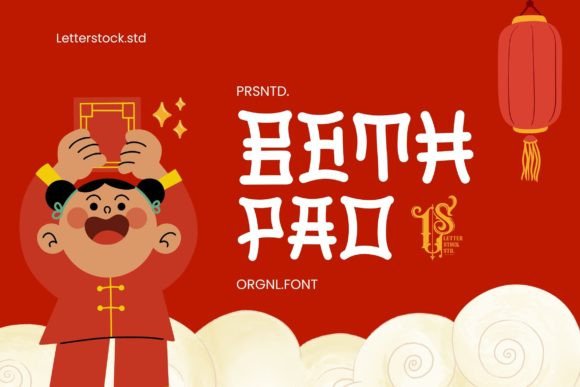
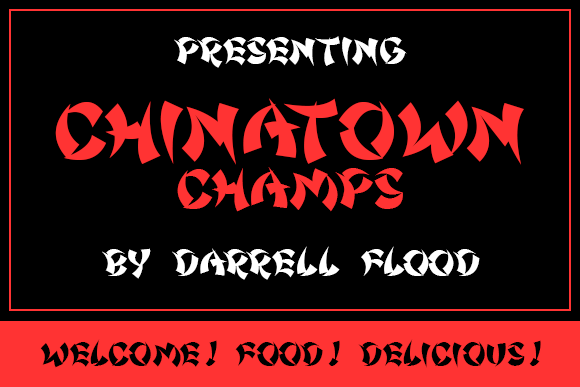
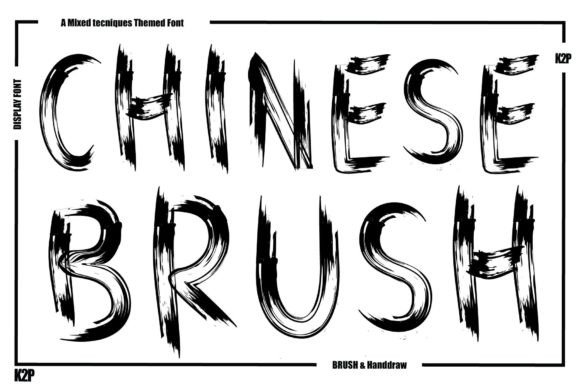
Bold Display (Countdown & Party)
Chunky, high-impact letterforms for posters, countdown timers, T-shirts, and signage.
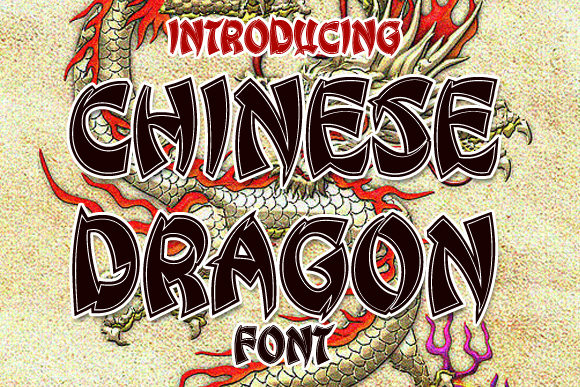
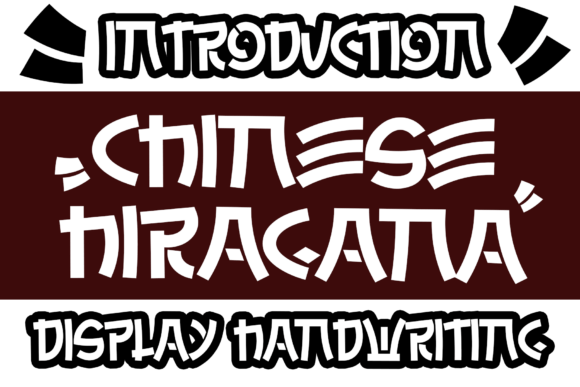
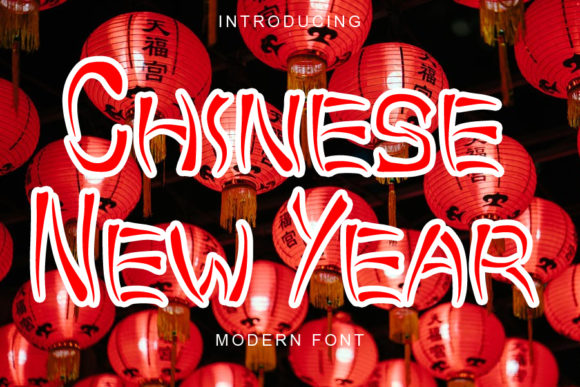
Chinese New Year (Lunar)
Brush calligraphy, seal/chop aesthetics, and celebratory motifs (lanterns, dragons). Pair with red & gold for classic CNY identity.
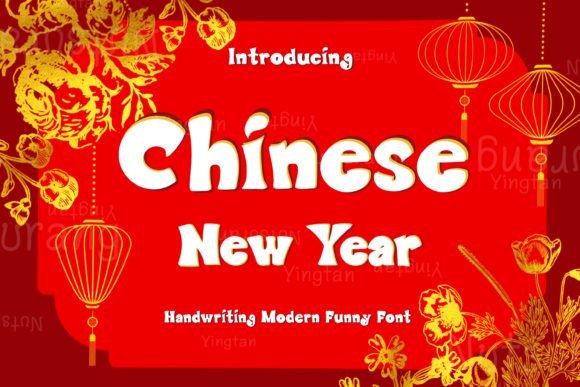
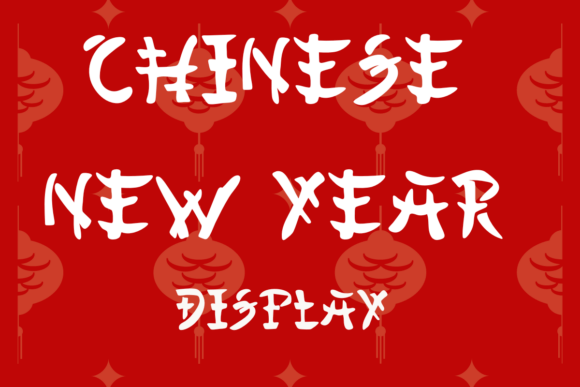
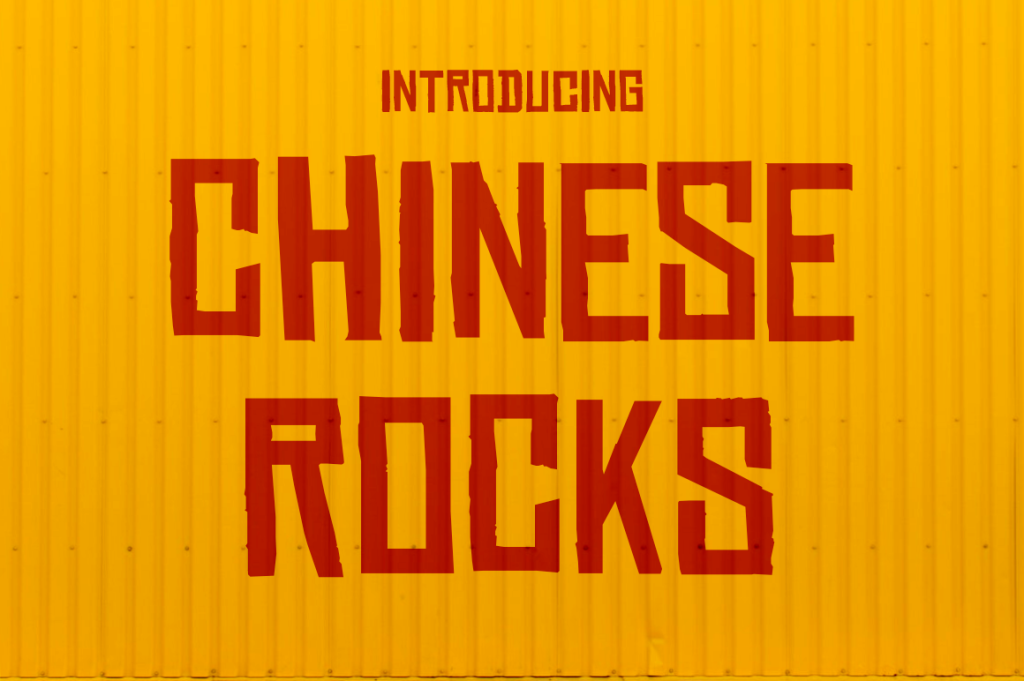
Minimal / Luxury
Crisp sans or refined serifs for menus, event programs, and upscale brands.
Font Pairing Recipes for New Year Projects
- Sparkling script + Tall sans – glamorous headline + readable details
- Bold display + Tabular numbers – perfect for countdowns & dates
- Chinese brush + Small caps serif – festive header + refined subheads
- Art-Deco display + Geometric sans – vintage party vibe, easy to read
Project Ideas
Party invitations • Champagne/bottle labels • Photo-booth props • Countdown posters • Red envelope (hongbao) designs • Menu & place cards • Social story templates • Printable wall art
Color & Styling Tips
- Western New Year: black/white, gold (#D4AF37), silver (#BFC0C0); add starbursts, confetti, clock icons.
- Chinese New Year: rich red (#D62828) + gold; add lanterns, clouds, waves, or coin patterns.
- Use subtle gradients/foil textures to make headlines pop; keep body text clean.
FAQ
Brush calligraphy and seal/chop-inspired display faces; pair with red & gold accents.
Use layered metallic textures or gradient overlays; many gold effect fonts include ready styles.
A bold display font for “2026” + a clean sans with tabular numbers for times.